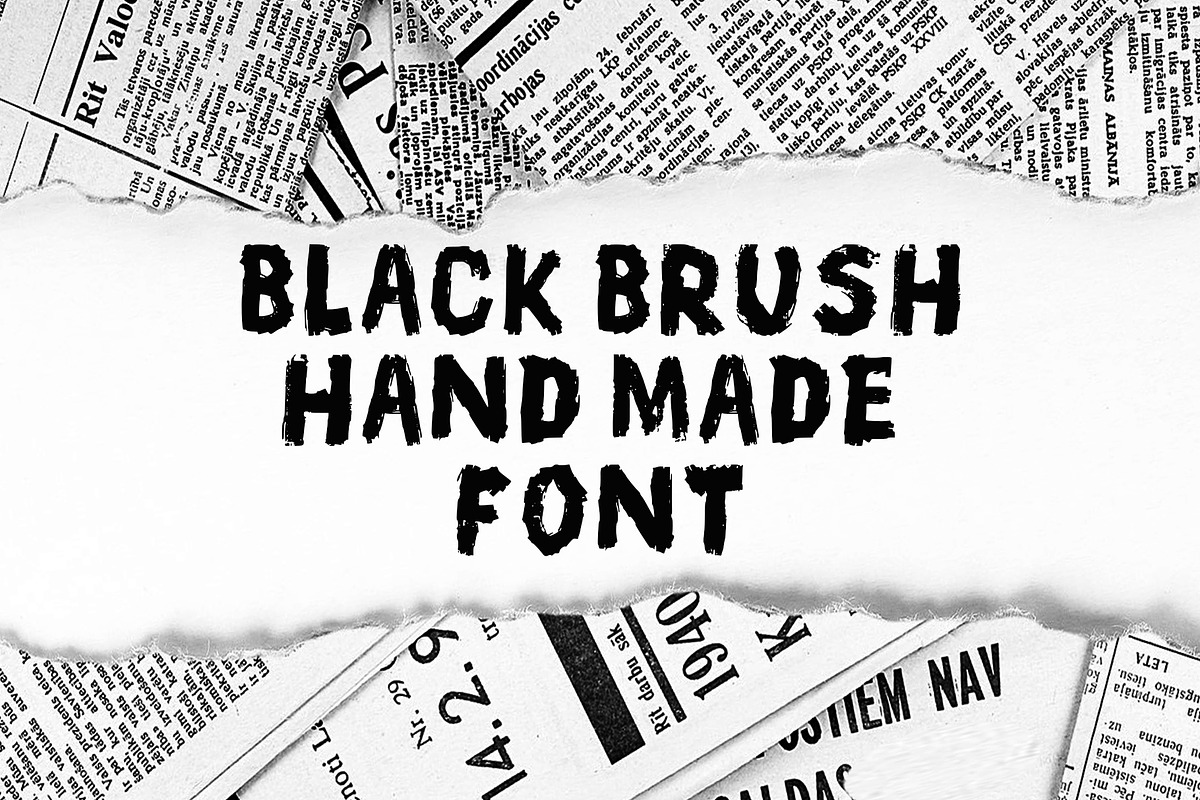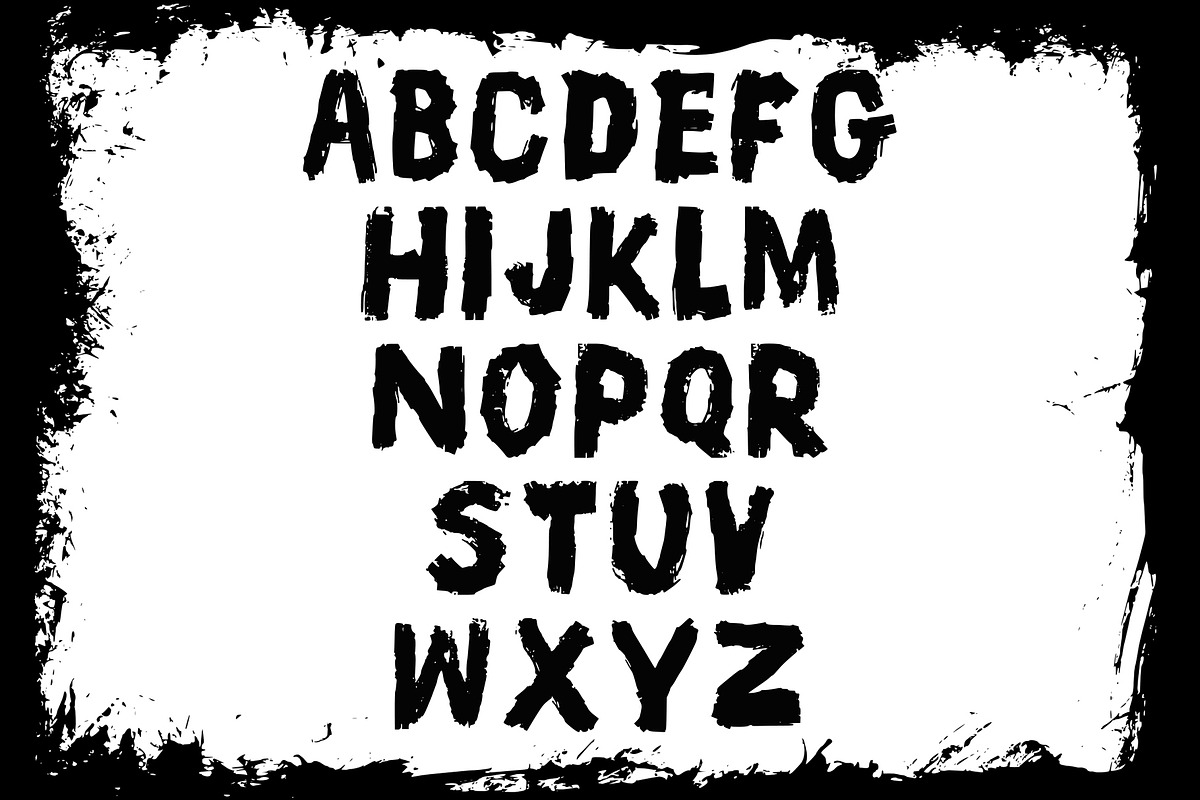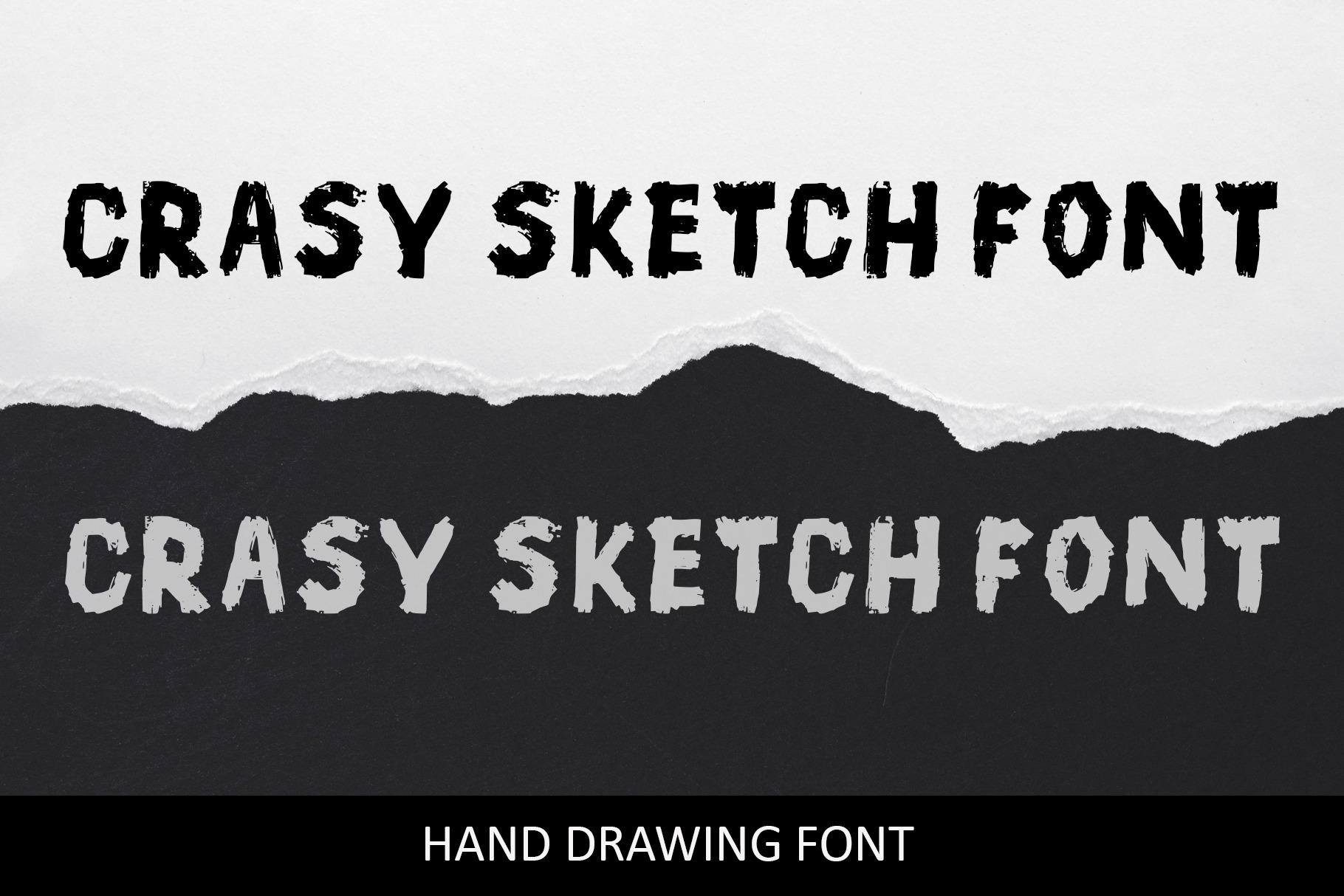
Crasy Sketch Font - Brush Font
Introducing the new Crasy Sketch Font - an uppercase font drawn with a huge painter's brush and a huge character.
Crasy Sketch Font is a display font that will help your design to stand out from the crowd. It looks great on posters and product packaging.